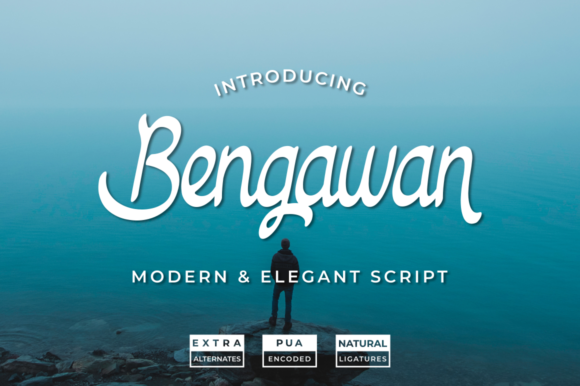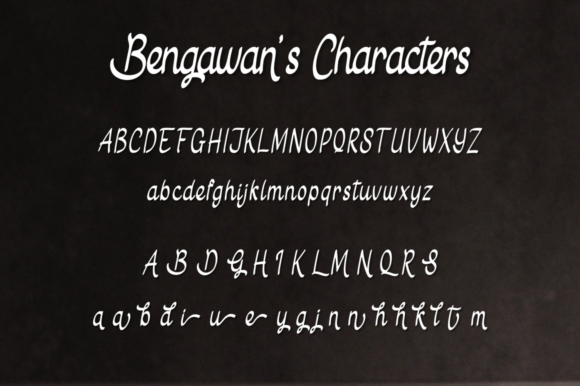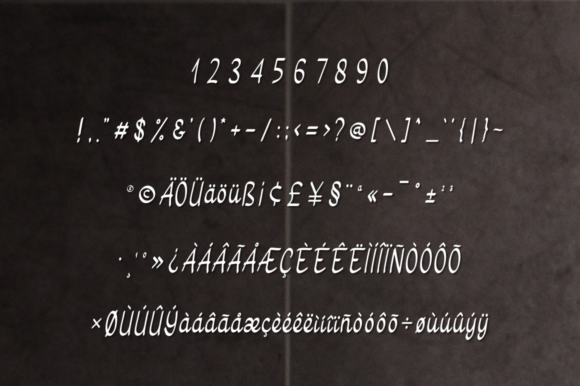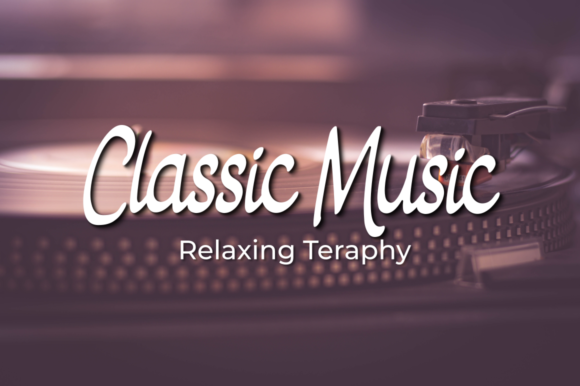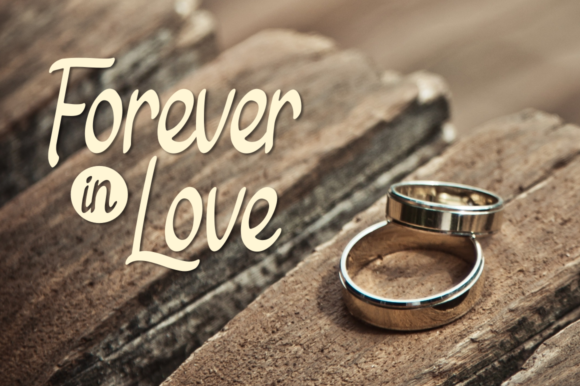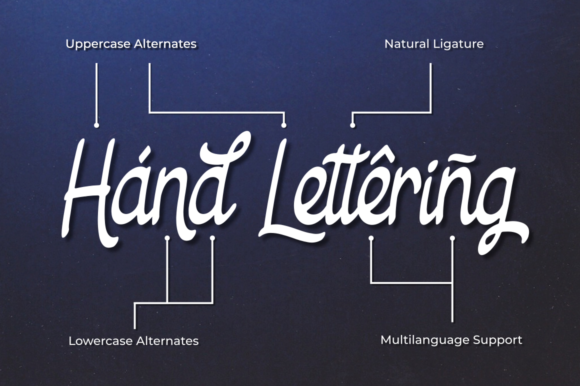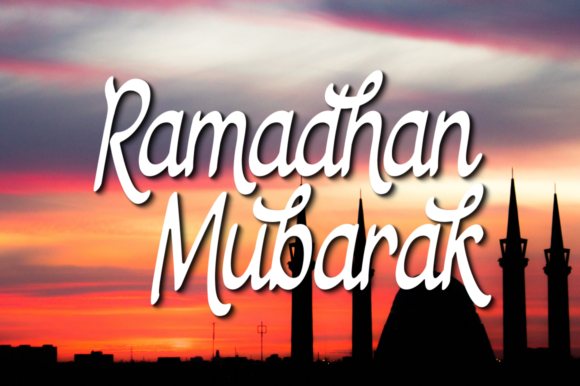
Bengawan Font
About Bengawan Font
Bengawan is a fun and bold handwritten font with a unique feel. Full of authenticity, it will turn any creative project into an eye catcher!